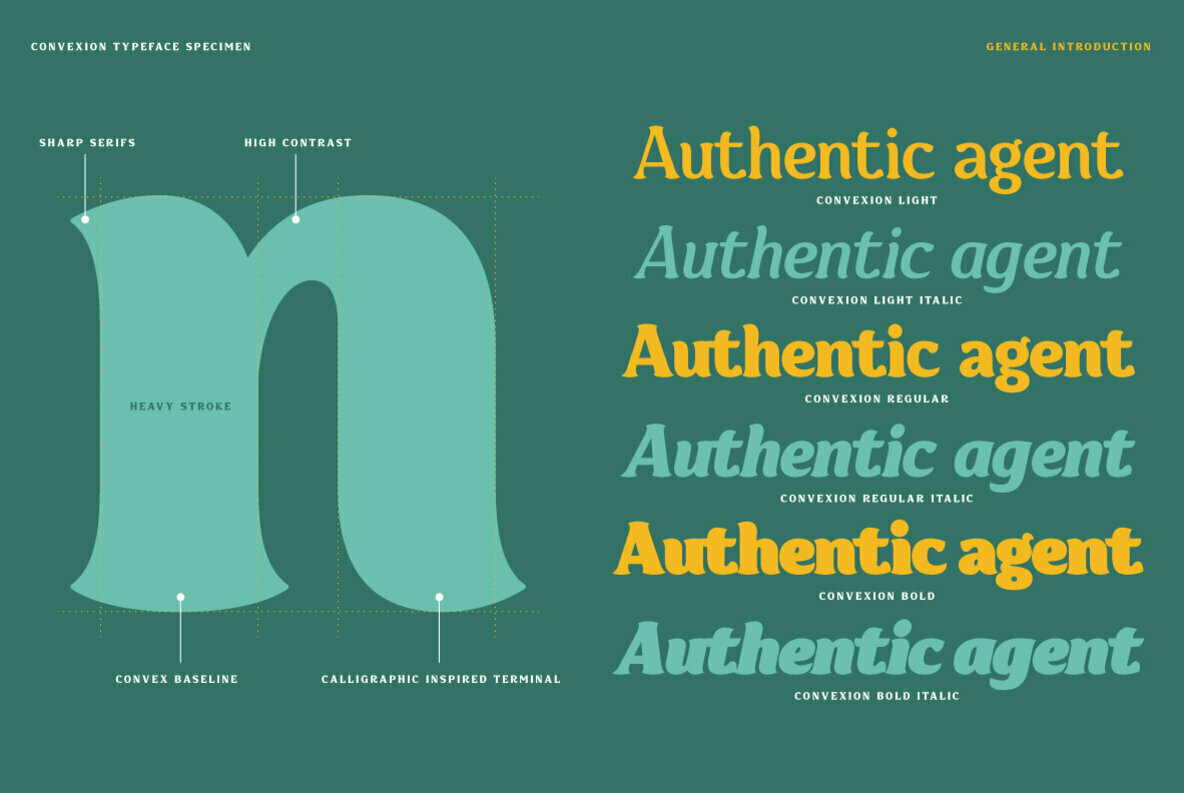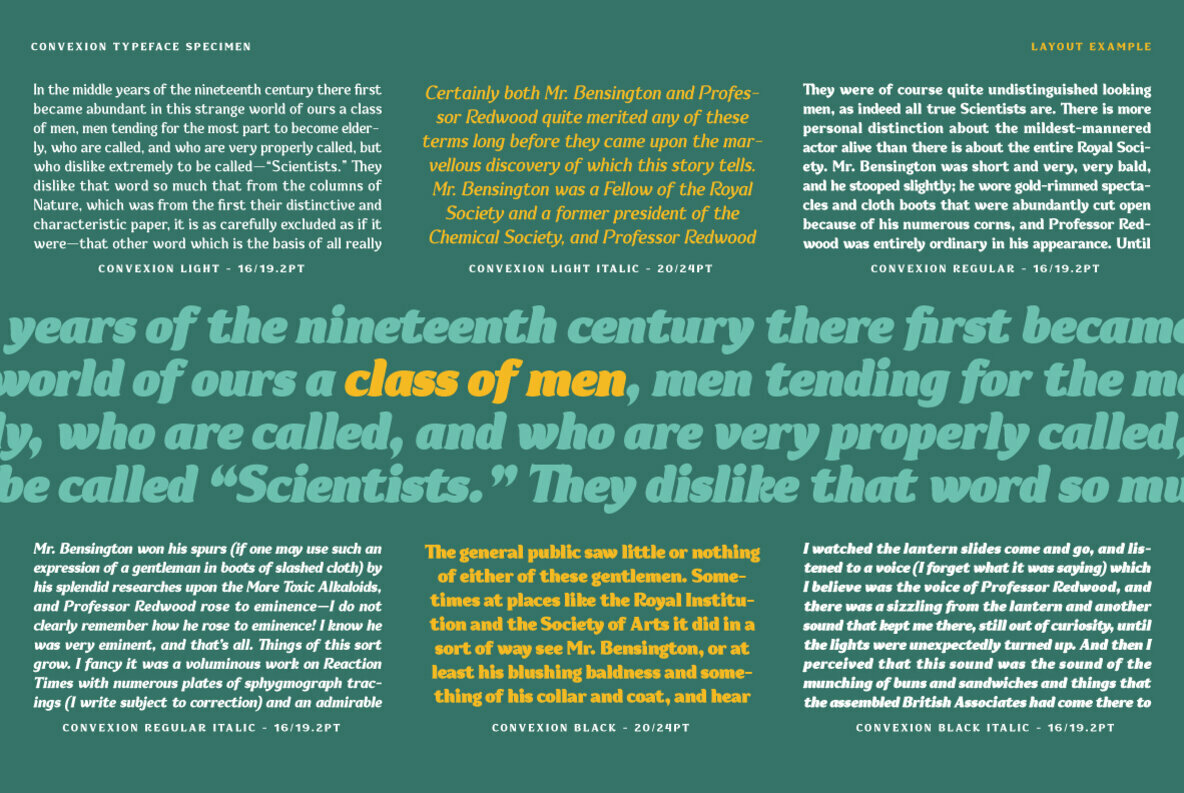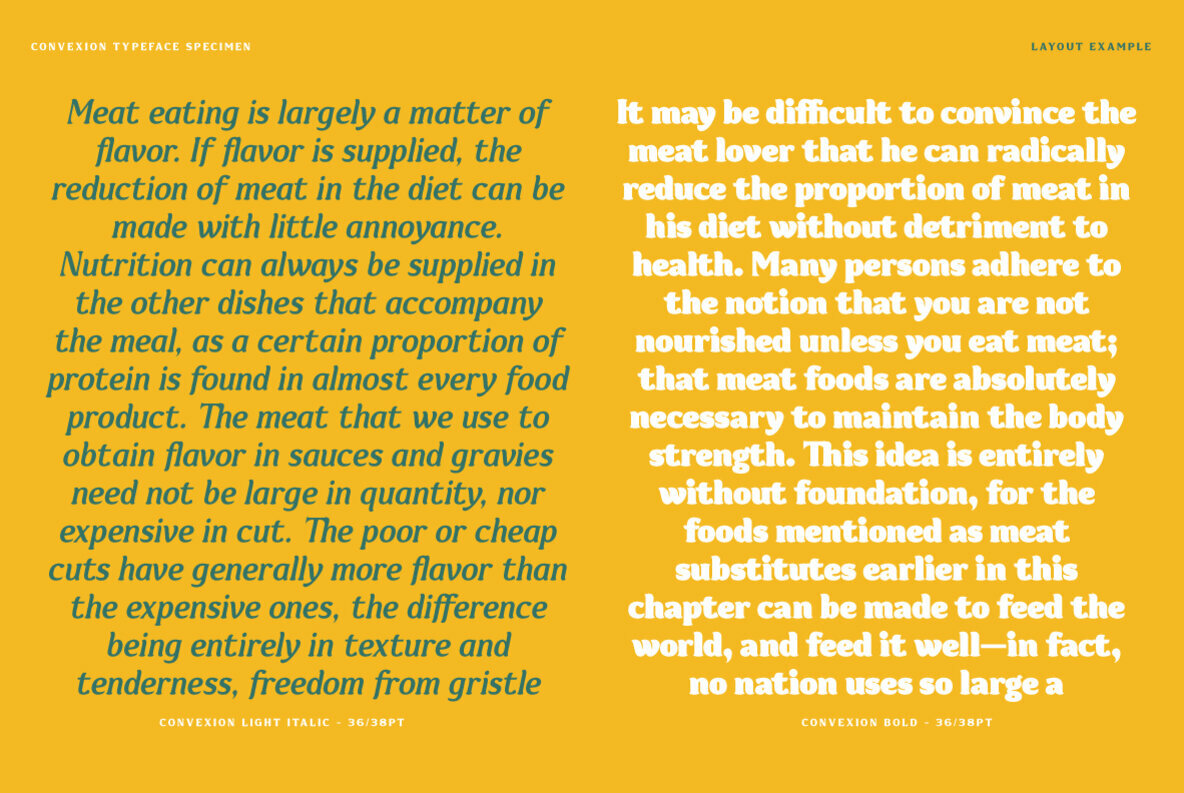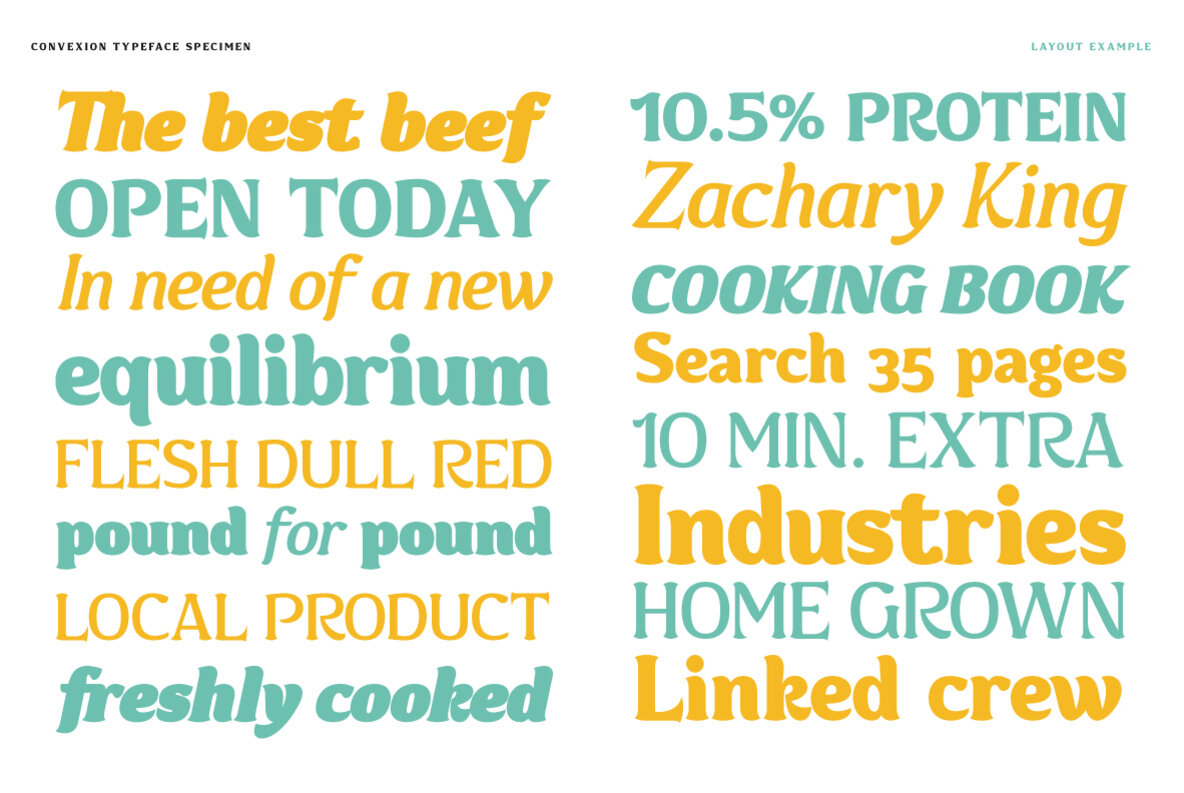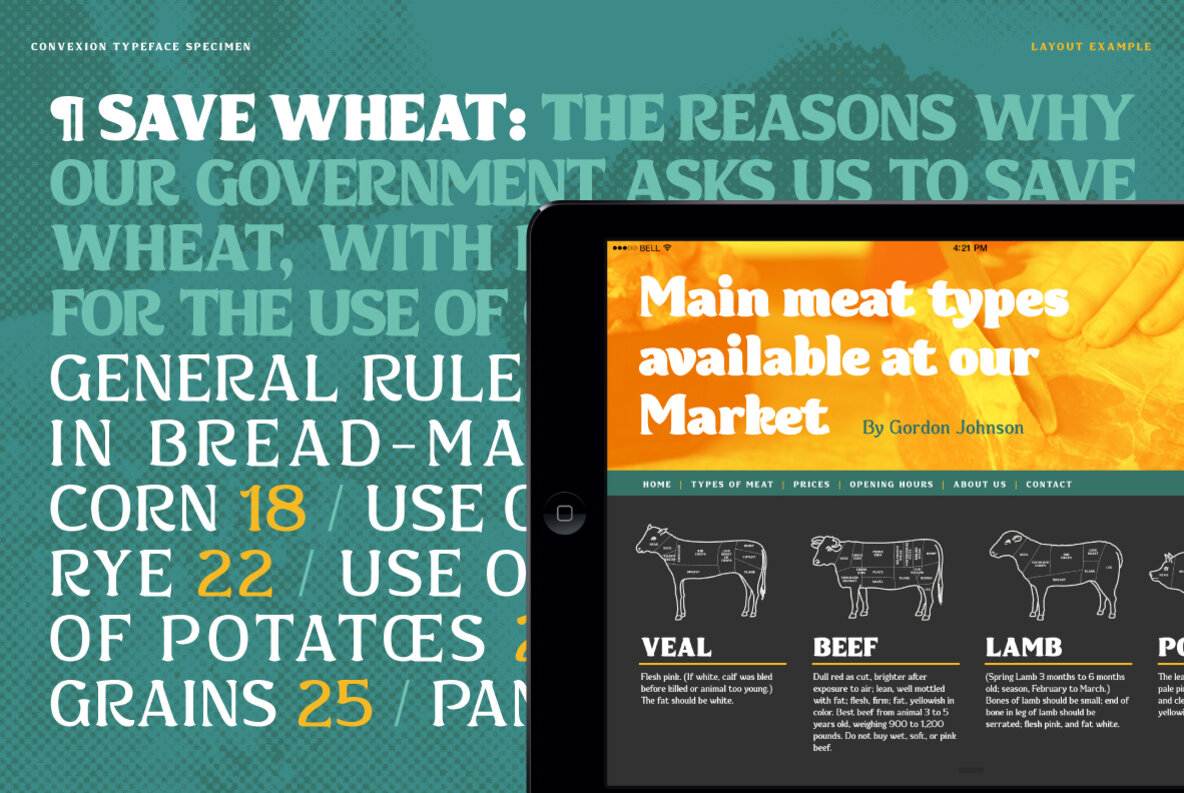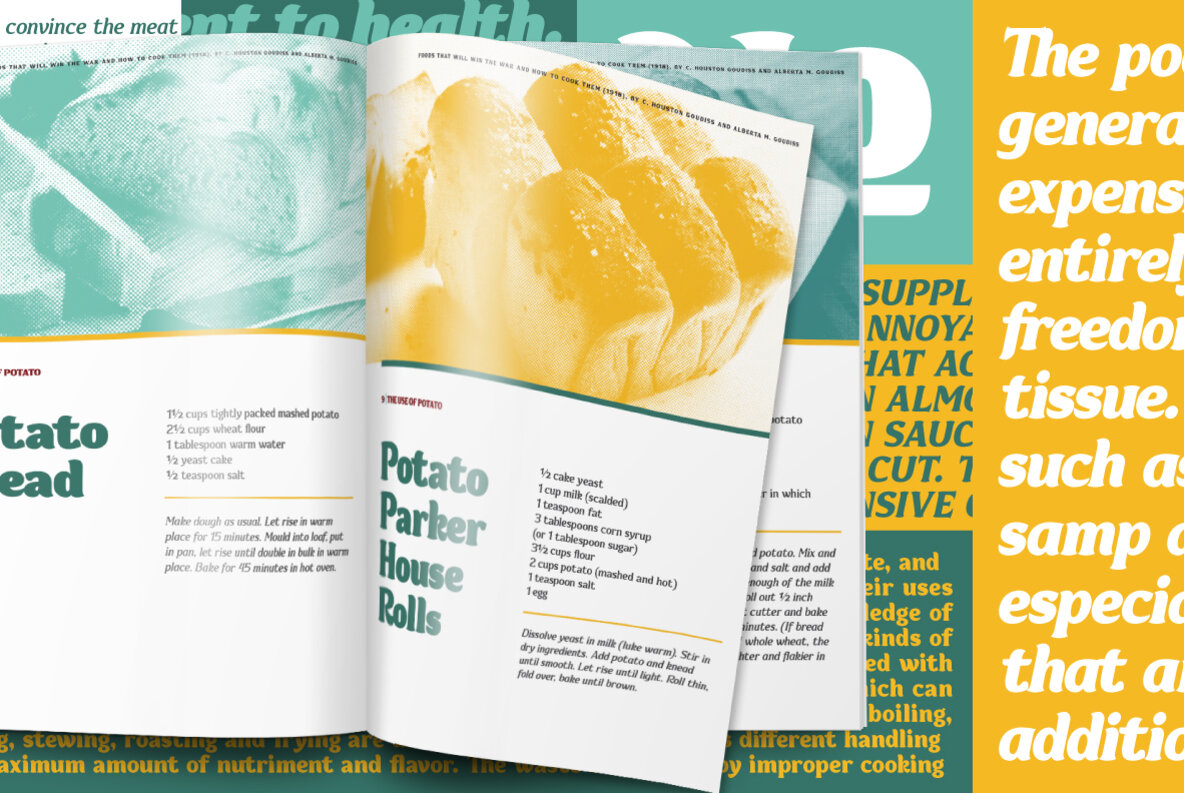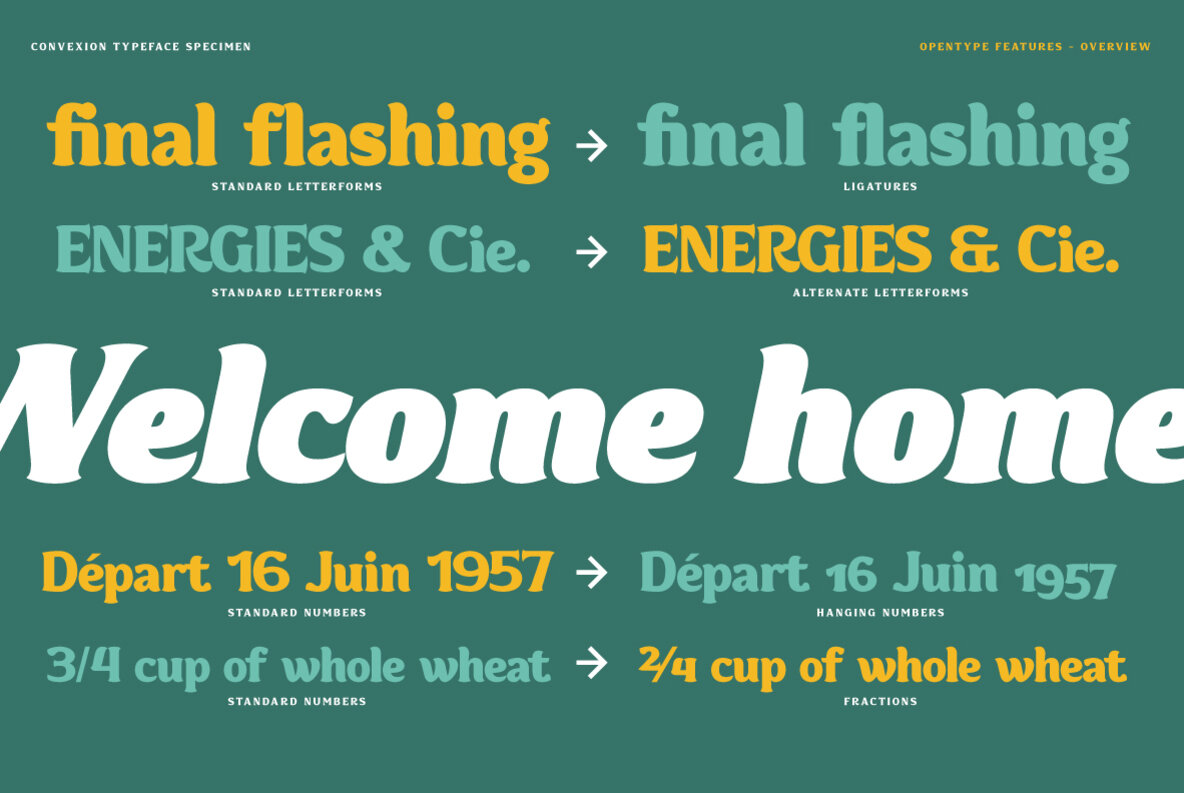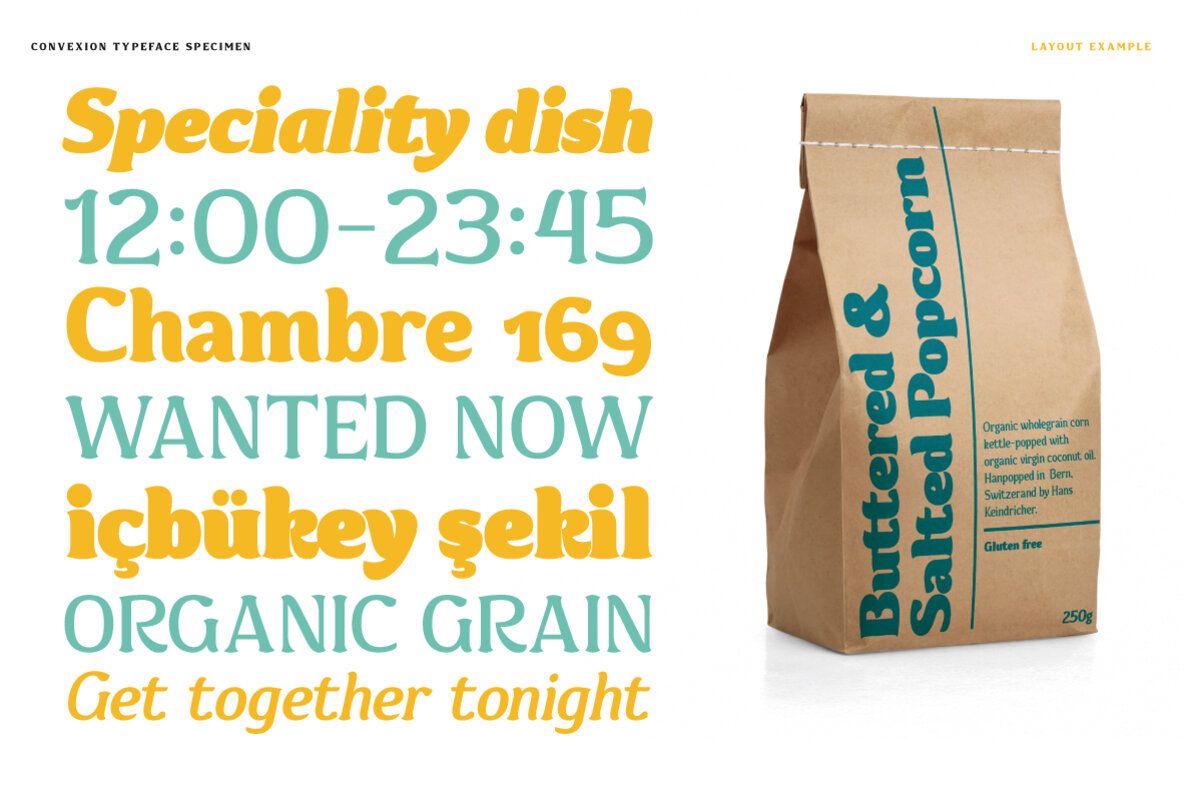
Convexion Font
Designed as a versatile and functional family, Convexion is the result of a personal exploration into the use of convex forms in serif designs. It’s humanist form is inspired by a fusion of classical serif forms with the more expressive forms found in script lettering, to create a legible yet original typeface family.
Consisting of 3 weights, with accompanying cursive inspired italics, this family is suited for a wide range of applications such as branding that will expose it’s defined personality or editorial design were it can be used for both display titles or text.
This family supports a range of Opentype features, offering multiple numeral styles, ligatures and other alternate glyphs. With an extended Latin glyph set, it will support most Latin based languages.